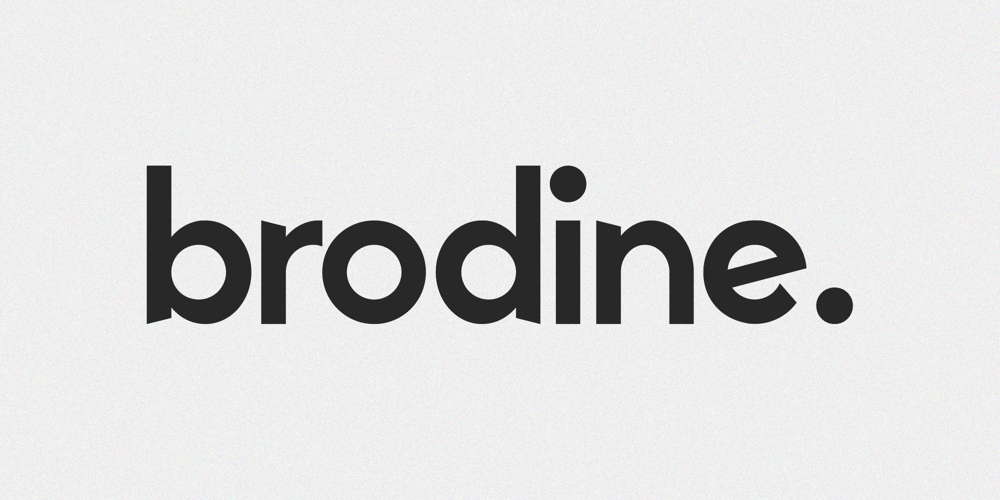
Brodine
Brodine font
Brodine Font Family was designed by Iwan Alwan and published by Artiveko. Brodine contains 2 styles and family package options. Brodine is a modern sans serif font designed by Iwan Alwan, featuring clean, contemporary letterforms that balance simplicity and elegance. Ideal for branding, web design, and editorial projects, Brodine delivers a polished, professional aesthetic that fits a wide range of applications. With multilingual support, ligatures, and alternates, Brodine combines versatility with a sleek, modern style, making it perfect for projects that demand a fresh and refined look.